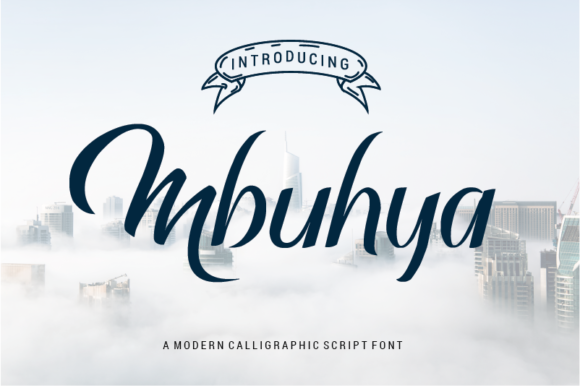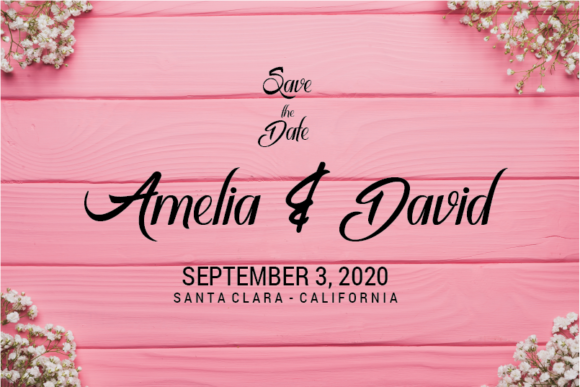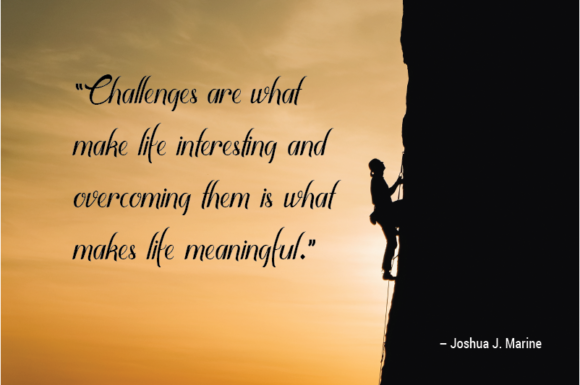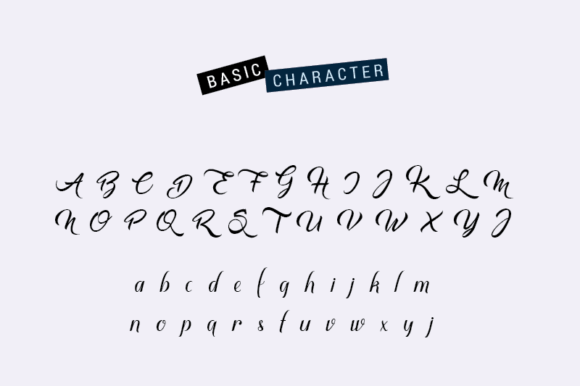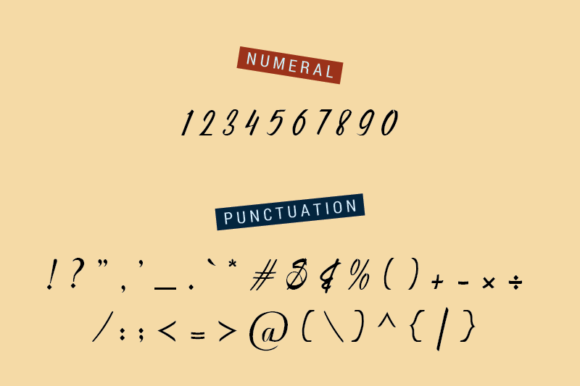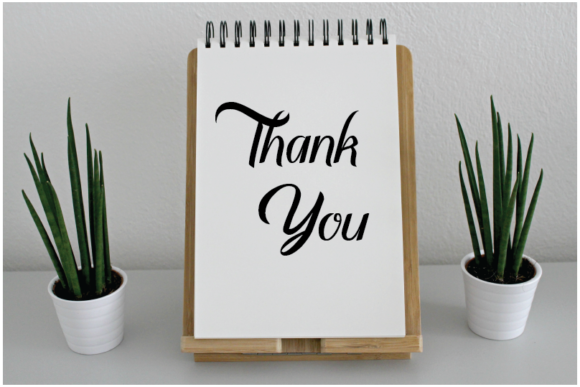
Mbuhya Font
About Mbuhya Font
Mbuhya is an elegant and stylish handwritten font. Fall in love with its incredibly versatile style and use it to create gorgeous wedding invitations, beautiful stationary art, eye-catching social media posts, and much more!